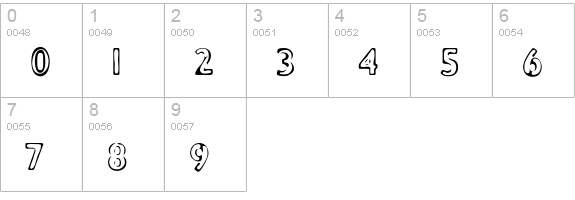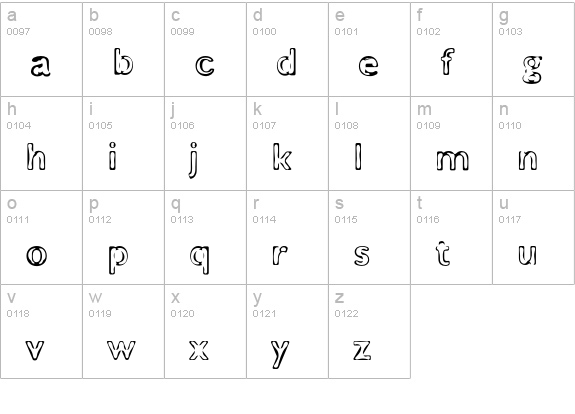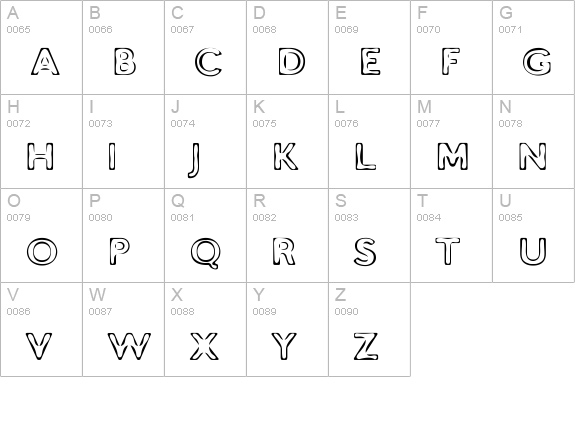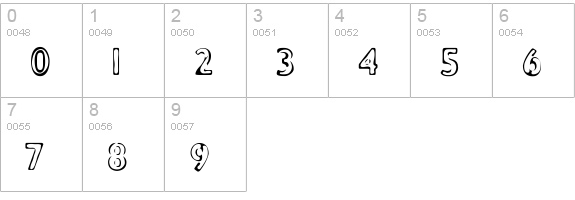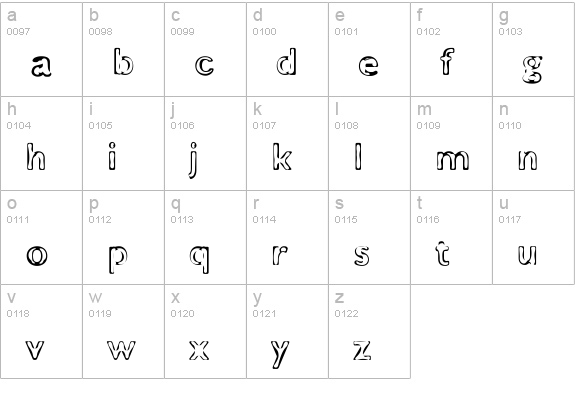
Burnout Font Details
Introducing Burnout font, a dynamic and energetic typeface that captures the essence of speed and motion. With its bold and modern design, Burnout font is perfect for projects that require a sense of urgency and excitement. Whether you're creating posters, flyers, or social media graphics, this font will make your text pop and grab attention. What's even better is that Burnout font is available for free download at FontsMarket.com. Take your designs to the next level with this eye-catching font that is sure to leave a lasting impression. Download Burnout font today and add a touch of adrenaline to your projects.